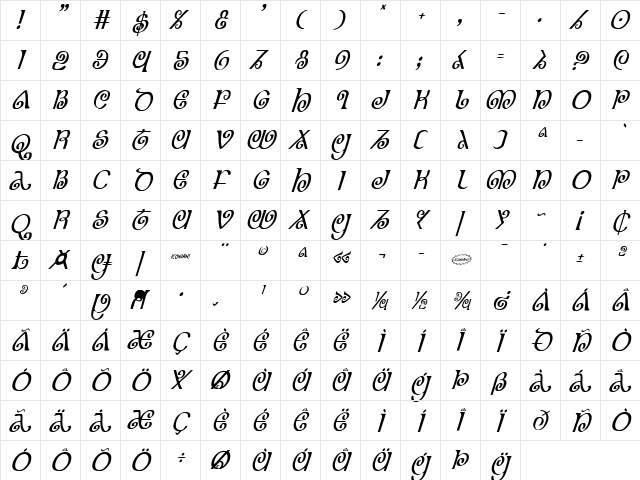
The Shire Condensed Italic Font Preview
Design Context for The Shire Condensed Italic Typeface
The Shire Condensed Italic is a composed and adaptable typeface that performs quietly and consistently across a wide range of design contexts. Its italic angle brings a sense of urgency and motion to the letterforms. The condensed width makes it efficient for tight spaces without sacrificing legibility.
Pro Tip: Try The Shire Condensed Italic for annotation and caption copy alongside an upright companion — the contrast in angle creates a dynamic but ordered typographic system.